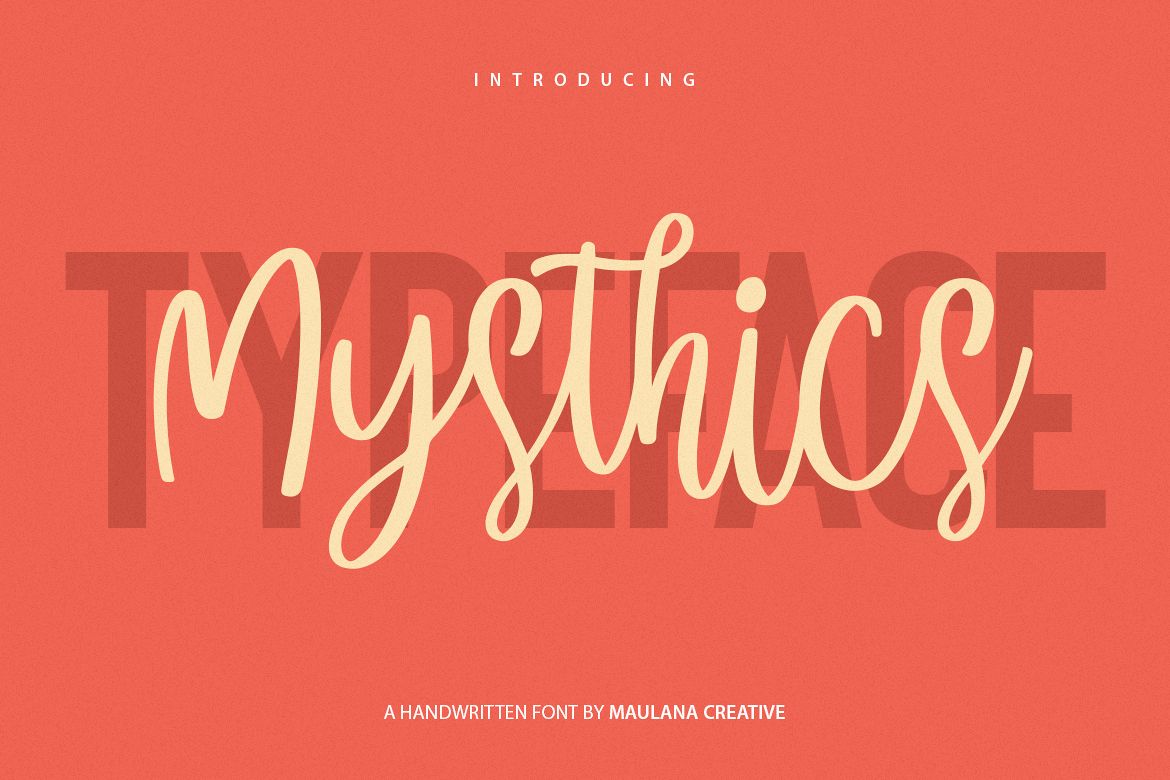
Give your designs an authentic brush handcrafted feel. "Mysthics" is perfectly suited to signature, stationery, logo, typography quotes, magazine or book cover, website header, flyer, clothing, branding, packaging design and more.